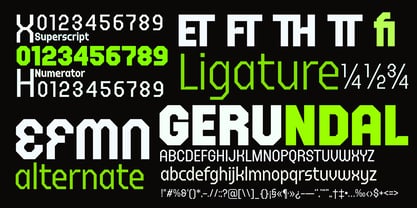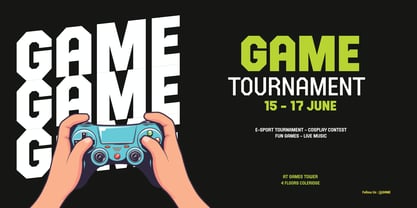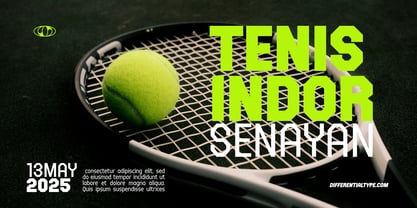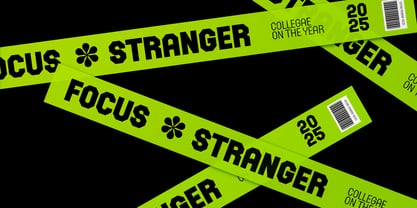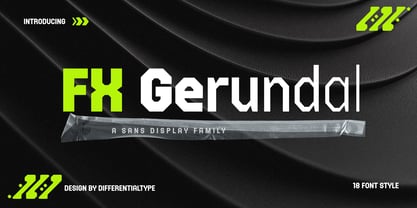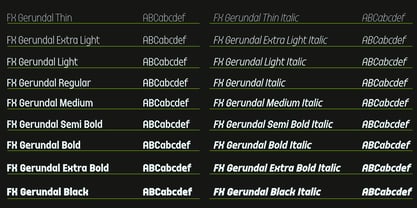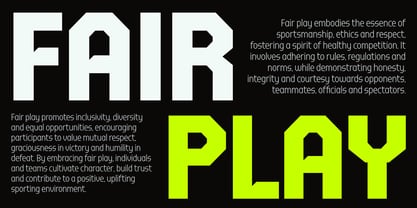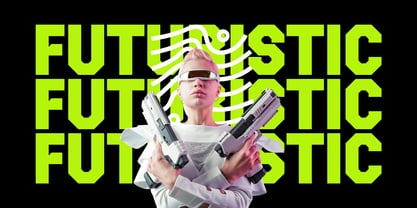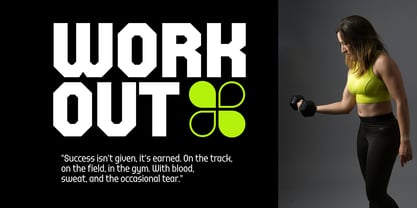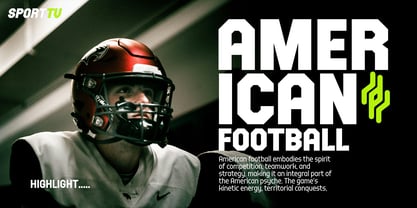
FX Gerundal
by Differentialtype
The FX Gerundal Font Family was designed by Sidik Sidik and published by Differentialtype. FX Gerundal contains 18 styles and family package options.
Unveiling FX Gerundal, the embodiment of contemporary and exclusive san serif font family. Boasting 18 diverse font styles, this gem brings a plethora of choices for your cutting-edge and sports-related designs. Its versatility triggers a broad range of applications, transforming ordinary documents with appealing text, crafting striking headlines, redefining product branding or enhancing gameplay experiences, and much more. FX Gerundal does not just add to your font repertoire; it amplifies your visual impact, even in the most minimal design scenarios. Striking a suave equilibrium between modern charm and legibility, FX Gerundal becomes a quintessential resource for designers seeking aesthetic efficiency without sacrificing an ounce of visual allure.